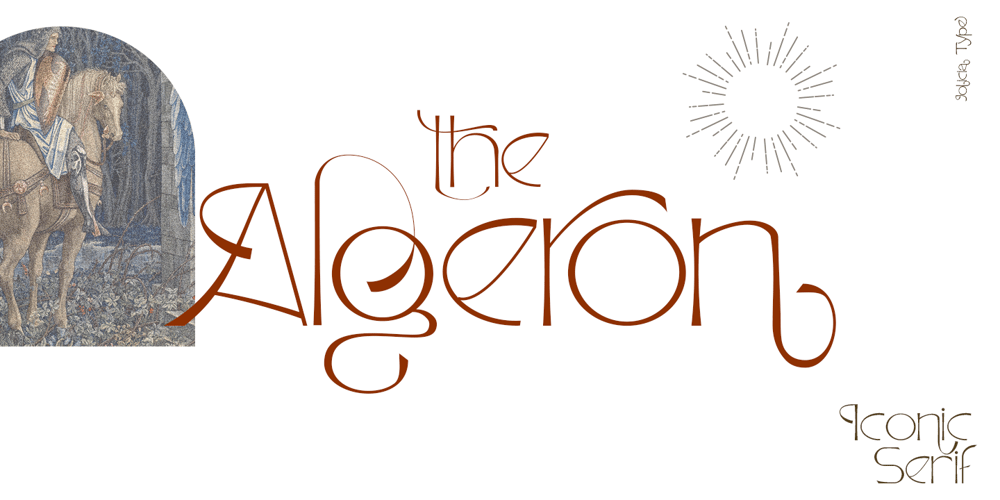
Algeron Font Family was designed by Dyaharum Pungki Revitasari and published by Jolicia Type. Algeron contains 1 styles and family package options. Algeron is a thin serif font with an ethnic feel and a modern twist, many alternates choices so that you can combine according to your style.Give your text some elegance and personalityand also you can use discretionary ligatures curves add a unique styleAlgeron include file : – Full uppercase, lowercase, numbers, punctuation + multilingual letters.